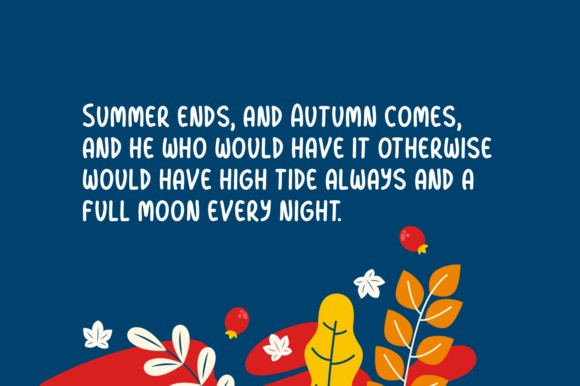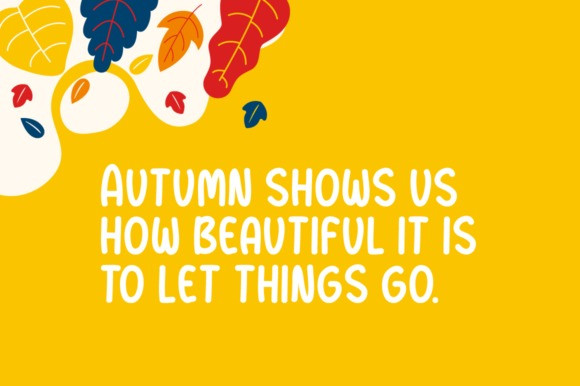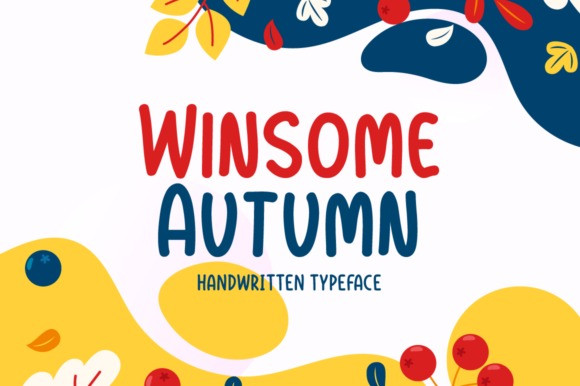
Winsome Autumn Font
Winsome Autumn fun font is a cute and quirky handwritten font. Add it to each of your party invitation, gathering or pretty much any design that requires a touch of youth and joy.